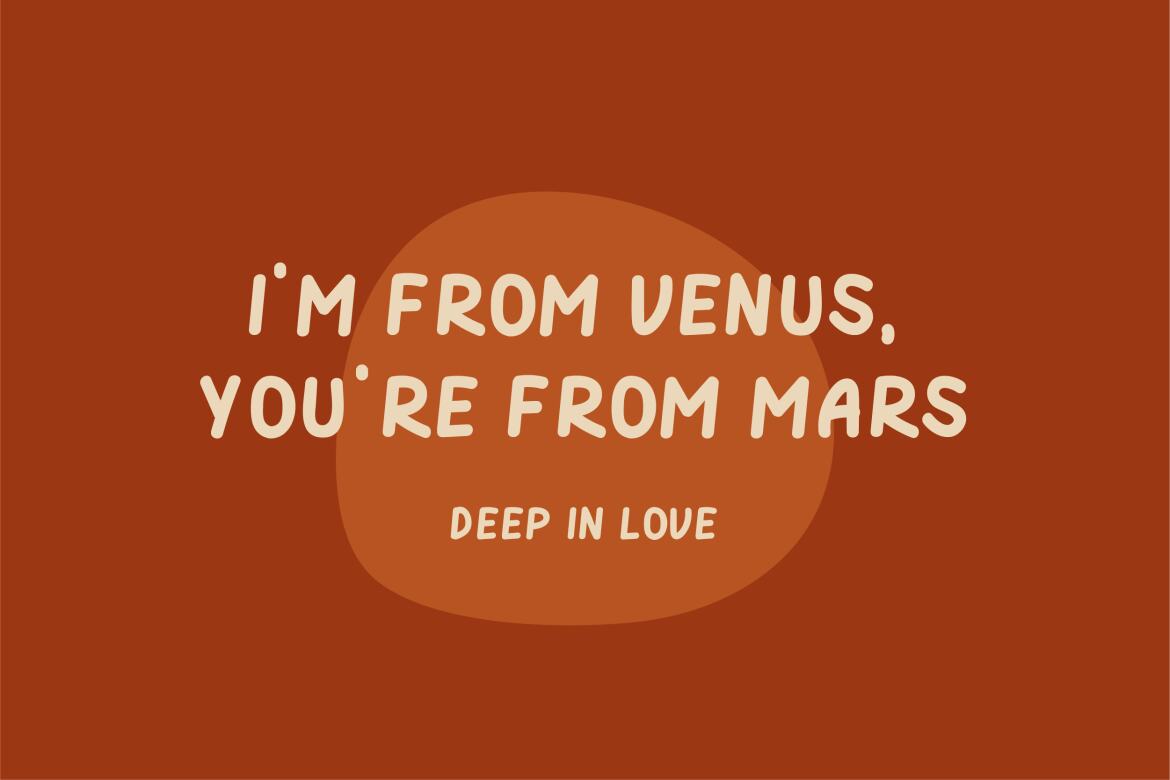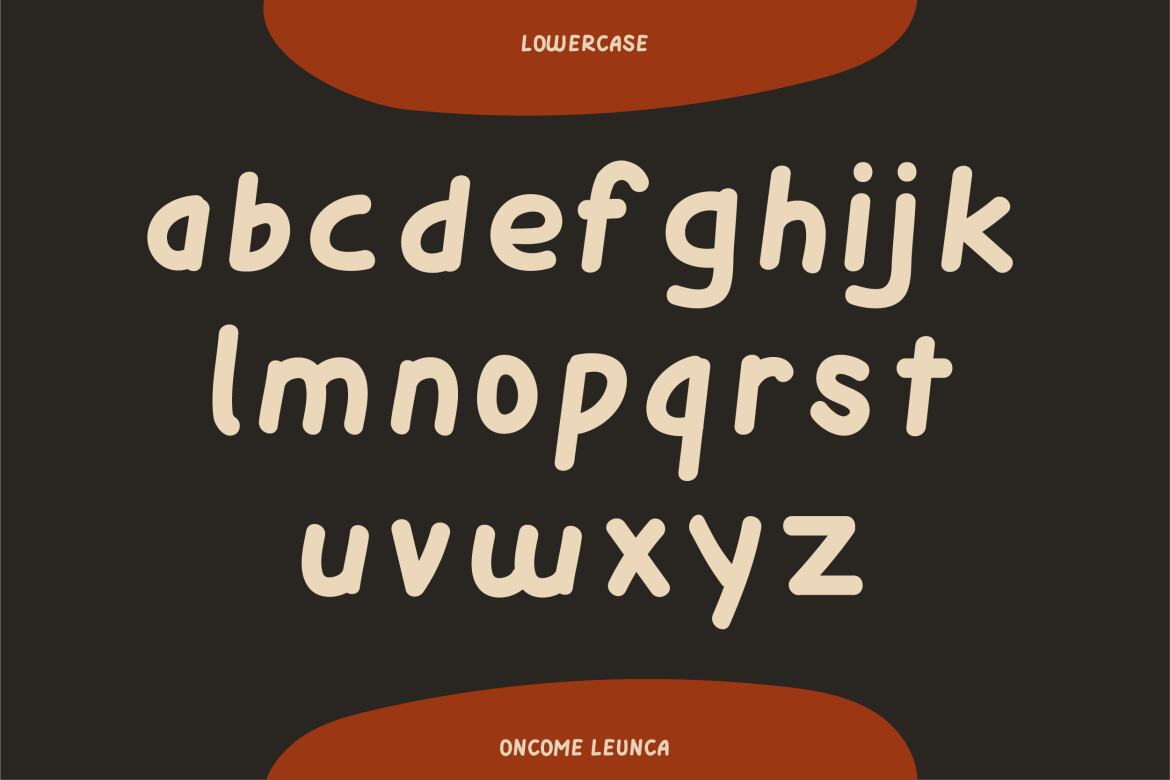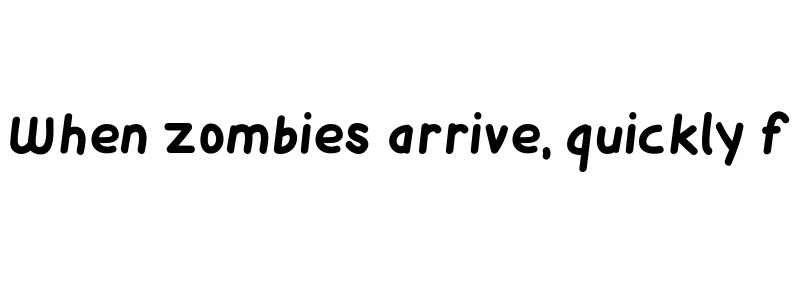
Oncome Leunca Playful FREE Font
Oncome Leunca Playful is a versatile high-quality playful font for your project's every need. The playful style is perfect for children's books, menus, invitations, etc. It includes all the characters you need to create professional-looking documents in a range of languages.